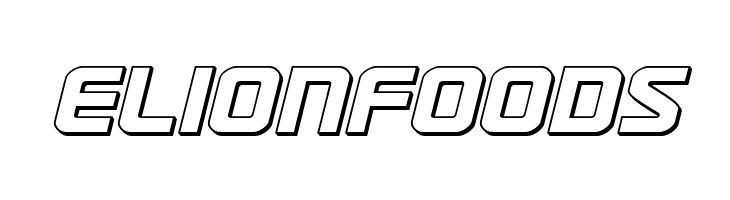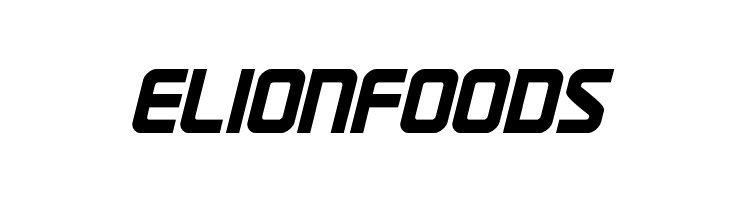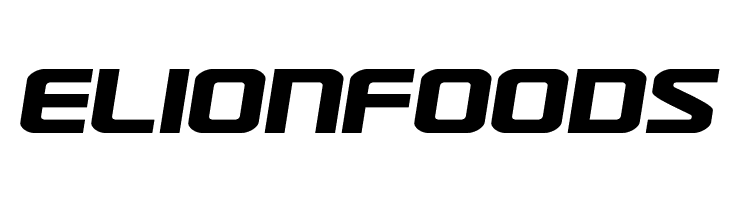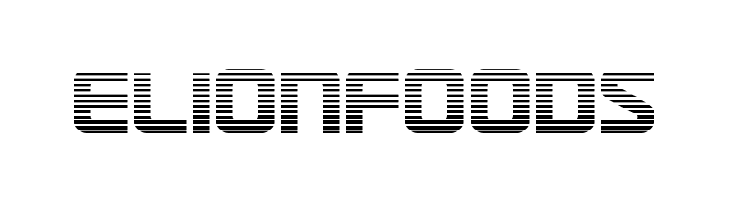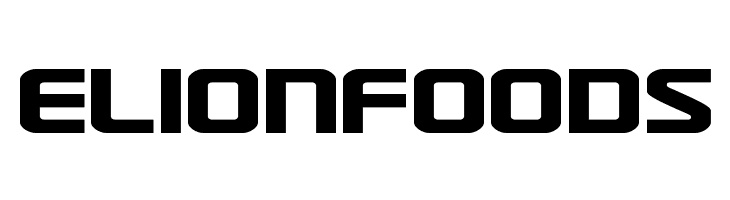
A bold, futuristic font with geometric shapes and sharp angles.
A bold, futuristic font with a 3D outline effect and geometric design.
A bold, 3D italic font with a futuristic and dynamic style.
A bold, futuristic, and condensed font with a geometric style.
A futuristic, condensed italic font with sharp angles and a dynamic style.
A bold, condensed, semi-italic font with a futuristic and dynamic design.
A bold, futuristic font with angular, geometric characters and expanded width.
A bold, expanded italic font with a futuristic and dynamic design.
A bold, expanded, semi-italic font with a futuristic and dynamic design.
A futuristic, bold font with a gradient effect created by horizontal lines.